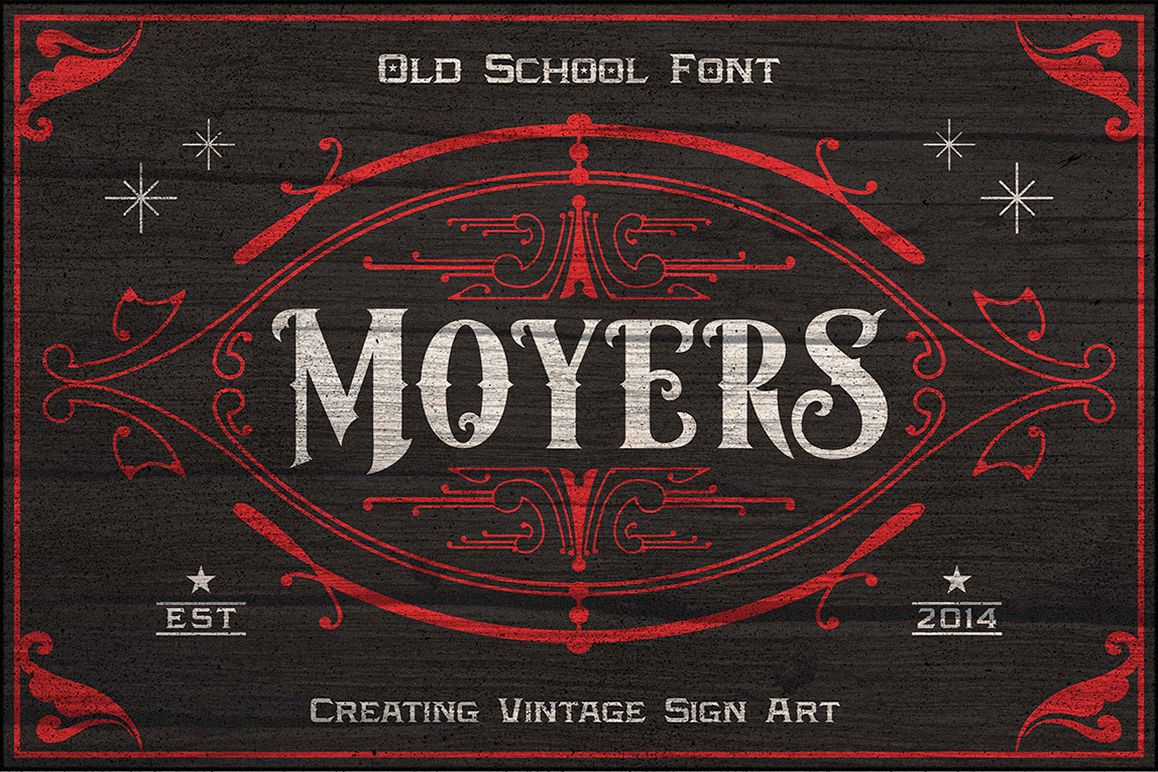
Moyers Typeface
Moyers typeface is Vintage Design, old-fashioned, elegant. This font good for vintage design, Display, t-shirt, logo, labels, posters and etc. Features: -Uppercase -Lowercase -Numerals -Basic punctuations Available in .OTF and .TTF formats. Thanks!
Haven't used this one yet, just need to find the right project for it. But it is a beauty
Bold and unique
A fonte é linda, vem com os acentos e glifos, porém não tem letras minusculas.